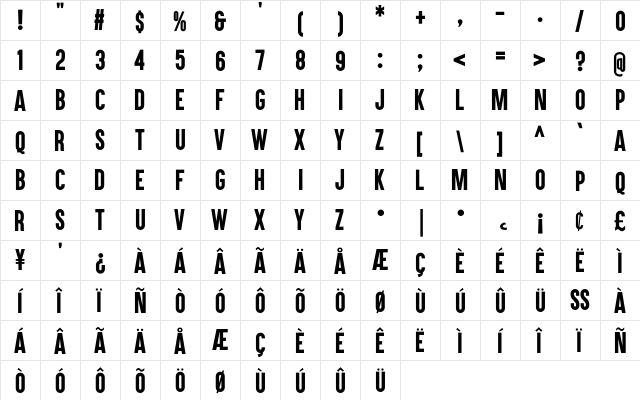
Aku & Kamu Regular
Design Context for Aku & Kamu Typeface
Aku & Kamu is a composed and adaptable typeface that performs quietly and consistently across a wide range of design contexts.